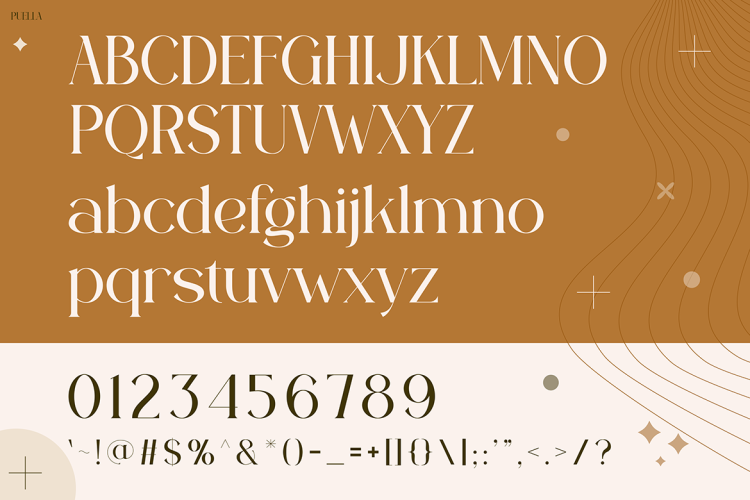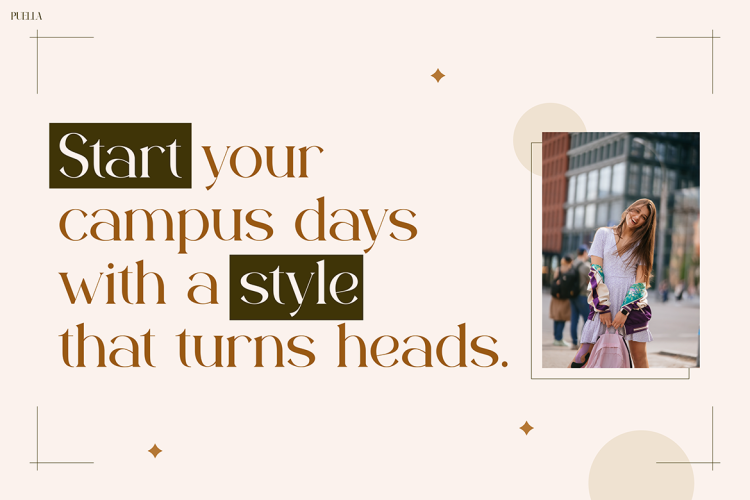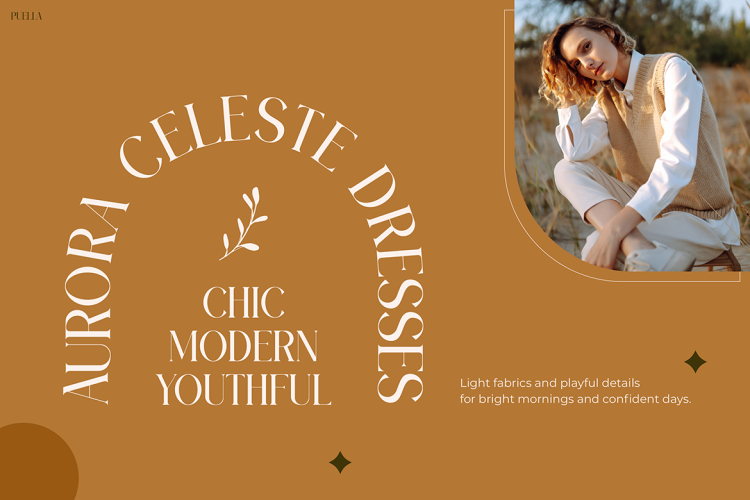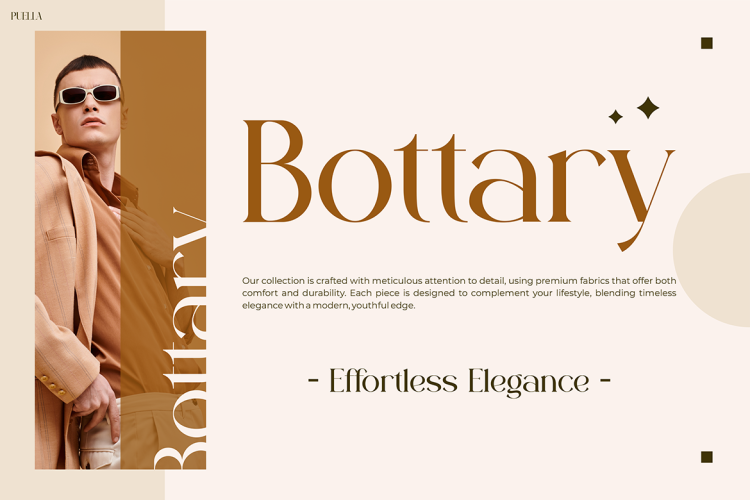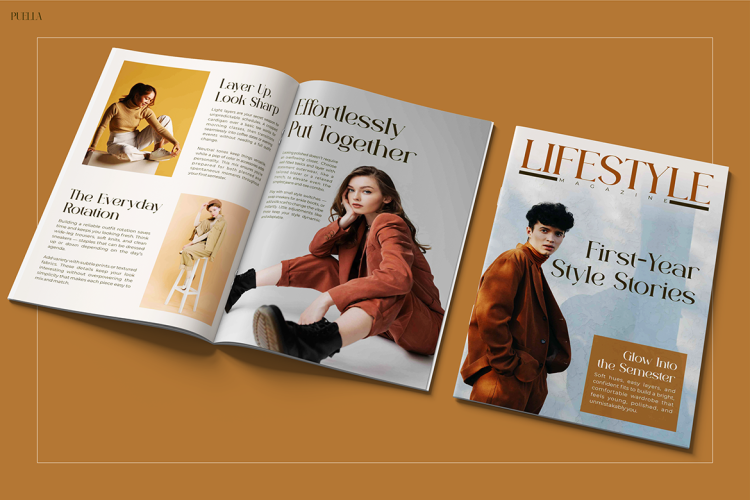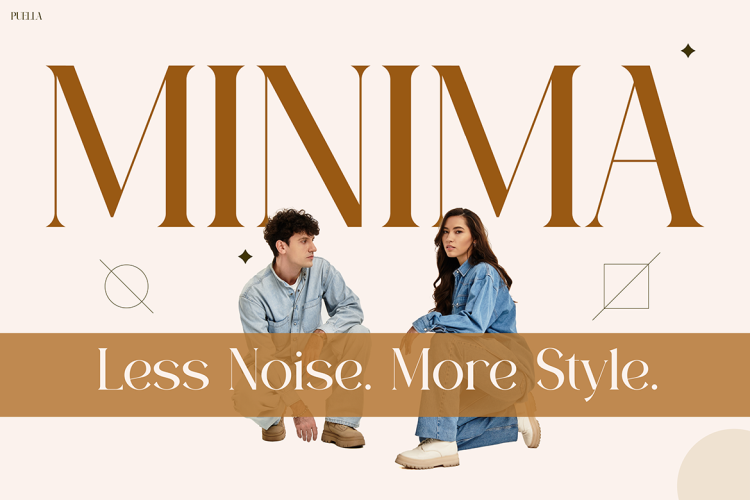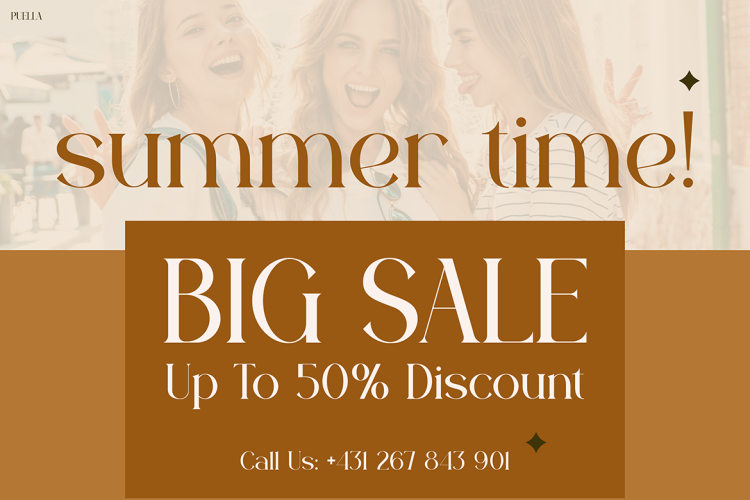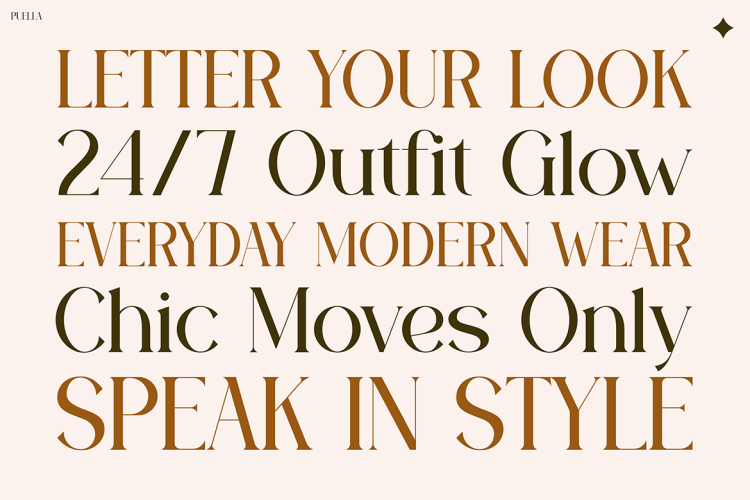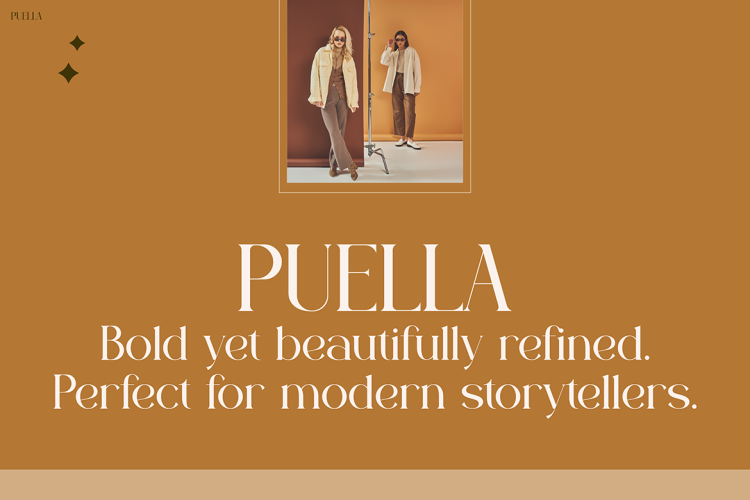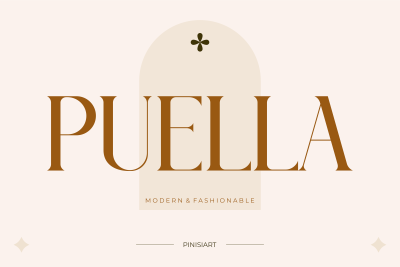
Instagram Font Puella โ Elegant, Modern, and Timeless
Instagram Font Puella is a sophisticated typeface that blends modern minimalism with timeless elegance, making it perfect for creating a stylish and professional visual presence. Its sleek letterforms, balanced proportions, and refined curves give it a chic and fashionable vibe, ideal for brands that want to make a bold yet graceful statement. Moreover, the font carries a luxurious aesthetic, effortlessly catching the eye while remaining versatile for multiple design purposes. Whether used in large headlines or smaller body text, Puella delivers a clean, confident look that elevates any creative project.
With its harmonious mix of contemporary and classic design, Instagram Font Puella is not just a fontโitโs a visual identity tool. In addition, the graceful serifs and subtle contrasts in stroke thickness create a unique texture that stands out in both print and digital formats. As a result, it becomes an excellent choice for branding, social media graphics, editorials, and high-end marketing campaigns.
Perfect For Designers, Influencers, and Modern Brands
Instagram Font Puella is perfect for those who need a typeface that communicates confidence, style, and professionalism. Furthermore, it works beautifully for fashion brands, beauty bloggers, lifestyle influencers, photographers, and creative entrepreneurs who want to maintain a consistent and appealing brand image.
If youโre a graphic designer, Puella will give your layouts a refined touch. For social media managers, it creates scroll-stopping posts that enhance engagement. Likewise, for business owners, it helps establish a premium brand presence across platformsโfrom Instagram feeds to printed promotional materials.
Because of its adaptability, Puella can be used in a variety of formats. For example:
Logos & Branding โ Perfect for creating lasting impressions.
Social Media Templates โ Eye-catching and trendy for posts, stories, and reels.
Magazine & Editorial Layouts โ Adds a touch of high fashion and professionalism.
Event Invitations & Posters โ Elegant yet approachable for formal and creative events.
Make Your Brand Unforgettable